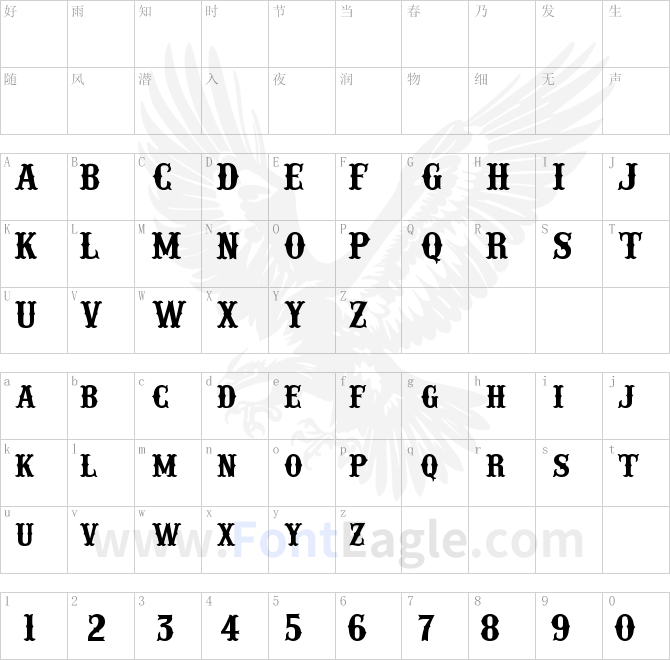
• Font name:IFC RAILROAD
• Font Subfamily:Gras
IFC-RAILROAD-Bold is a great font, widely used in graphic design, single-page menu design, poster design and other fields, and is deeply loved by designers.IFC-RAILROAD-Bold download.IFC-RAILROAD-Bold